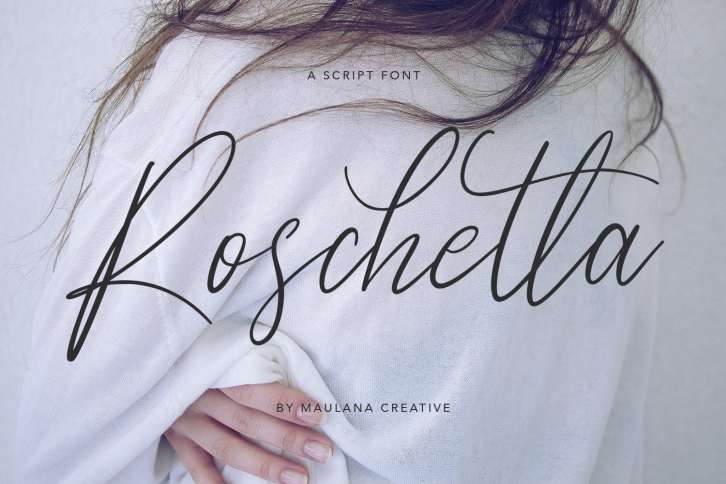
Roschetta Script Handmade Calligraphy Signature is a trendy and unique font with an authentic style. It was designed by Maulana Creative and it's a great choice for creative people who need such a font. It was released on July 13, 2020 and the file size is 20.1 MB. Roschetta Script Handmade Calligraphy Signature will add an organic vibe to any design idea!